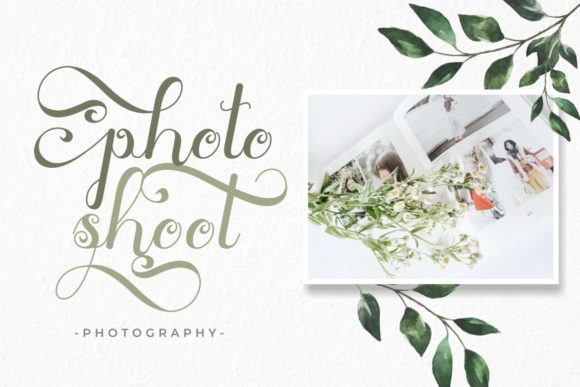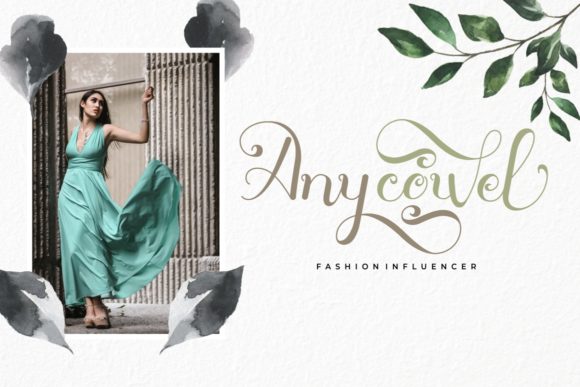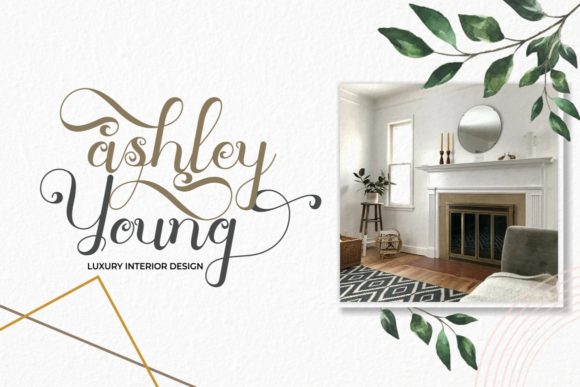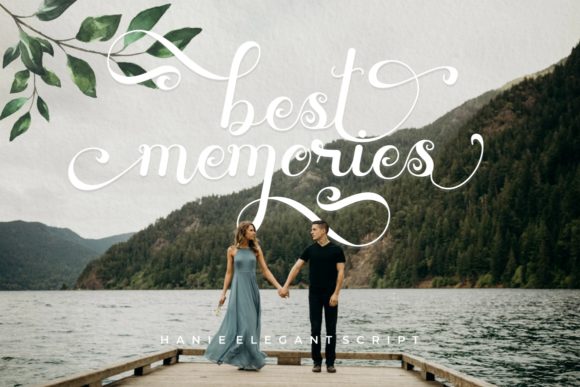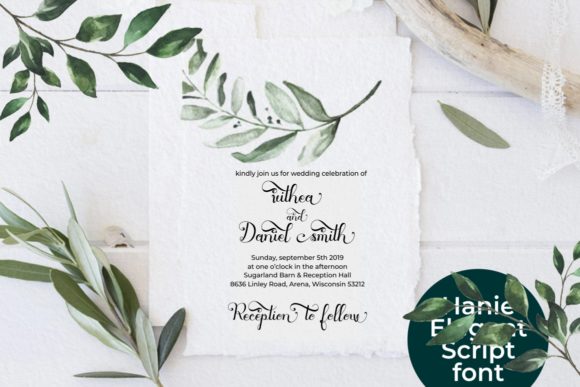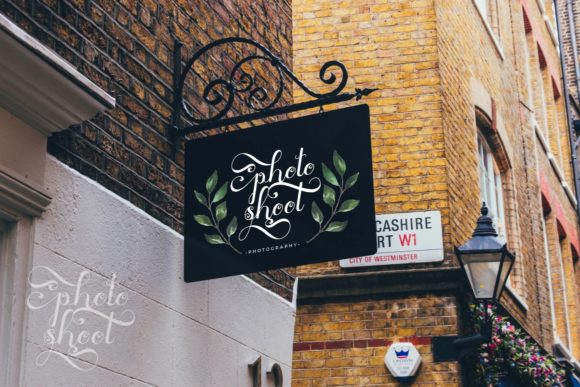
Discover the Timeless Elegance of Hanie Font
Enter the Hanie Font, a flowing handwritten font that exudes elegance and sophistication. With its unique touch, this font is designed to captivate your audience and leave a lasting impression. Whether you’re working on a branding project, a wedding invitation, or a personal blog, the Hanie Font is the perfect companion to help you create stunning designs that reflect your personal style.
Hanie Font Key Features
- Font Family: Hanie is a script font, meaning it is designed to mimic handwriting.
- Unique Characteristics: Features elegant, flowing lines and subtle flourishes, making it ideal for creative and artistic applications.
Hanie Font Review
Hanie Font is a beautifully crafted script font that exudes elegance and sophistication. ✨ Its flowing lines and subtle flourishes make it perfect for adding a touch of luxury to any design project. ✨ The font’s letterforms are well-designed, with a natural flow that makes it easy to read and use.
Here are some of the things that work well in Hanie Font:
- ✨ Elegant and sophisticated design
- ✨ Beautifully crafted letterforms
- ✨ Easy to read and use
- ✨ Suitable for a wide range of design projects
- ⚠️ Limited language support
- ⚠️ Not suitable for body text due to its script nature
- ⚠️ May require additional styling to achieve desired look
Overall, I would say that Hanie Font is a beautiful and elegant script font that is perfect for adding a touch of luxury to any design project. However, it may not be suitable for all design needs, and it’s worth considering the limitations before using it in your next project.
Tips for Getting the Most Out of Hanie Font
Use Hanie Font for titles and headings to add a touch of elegance and sophistication.
Combine Hanie Font with other fonts to create a unique and visually appealing design.
Experiment with different font sizes and colors to emphasize important information.
Hanie Font is ideal for:
Business cards and marketing materials
Blog posts and articles
Any design that requires a touch of elegance and sophistication
Alternatives to Hanie Font
Noto Sans
Noto Sans is a sans-serif font family designed by Google. It’s a great alternative to Hanie Font for body text and headings. Noto Sans is highly legible and supports multiple languages. It’s ideal for digital products and applications where readability is crucial.
Compared to Hanie Font, Noto Sans is more modern and has a cleaner design. While Hanie Font has a more rounded and friendly feel, Noto Sans is more geometric and professional.
Open Sans is a popular sans-serif font designed by Steve Matteson. It’s a great alternative to Hanie Font for body text and headings. Open Sans is highly legible and has a clean, friendly design. It’s ideal for digital products, applications, and websites.
Compared to Hanie Font, Open Sans is more modern and has a more neutral feel. While Hanie Font has a more rounded and feminine feel, Open Sans is more versatile and works well in a wide range of contexts.
Montserrat is a sans-serif font designed by Julieta Ulanovsky. It’s a great alternative to Hanie Font for titles and headings. Montserrat is highly legible and has a clean, urban design. It’s ideal for digital products, applications, and websites that require a strong, modern look.
Compared to Hanie Font, Montserrat is more geometric and has a more industrial feel. While Hanie Font has a more rounded and friendly feel, Montserrat is more edgy and modern.